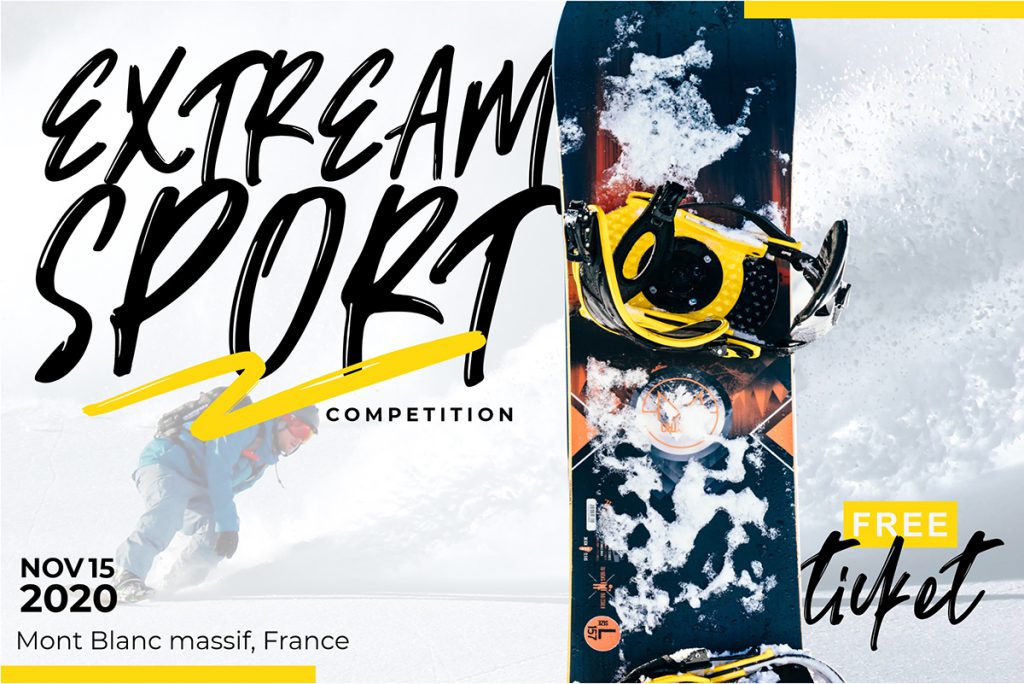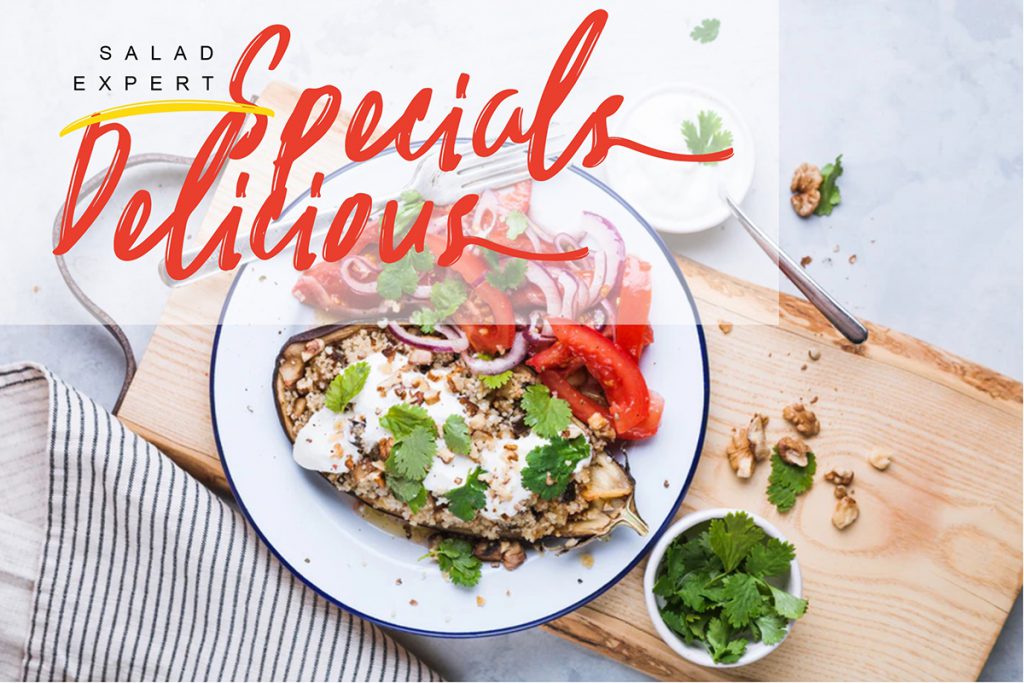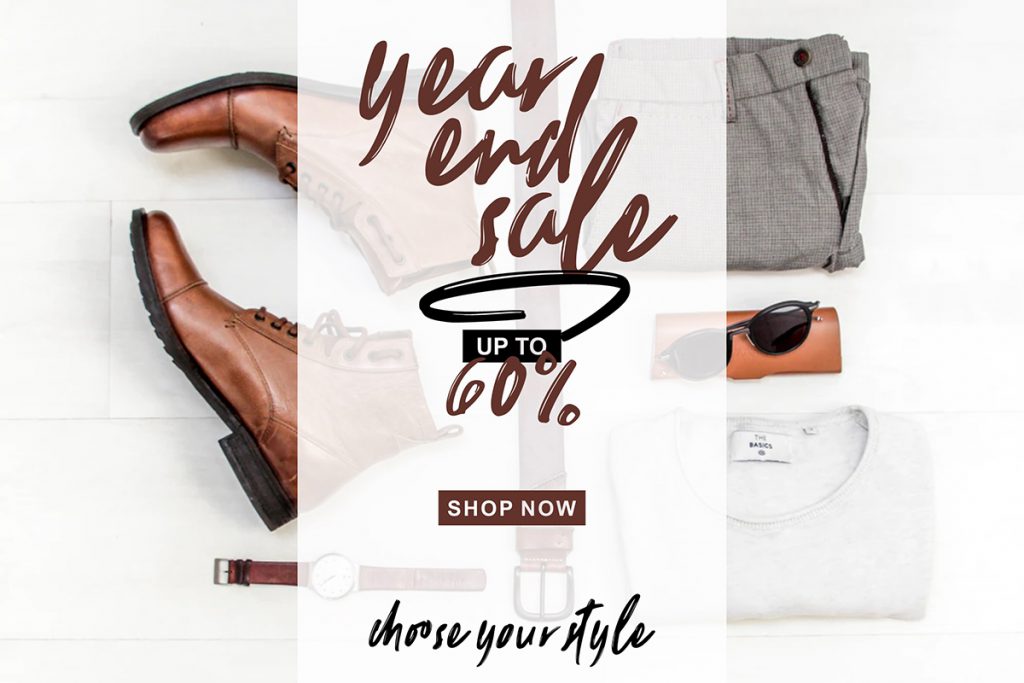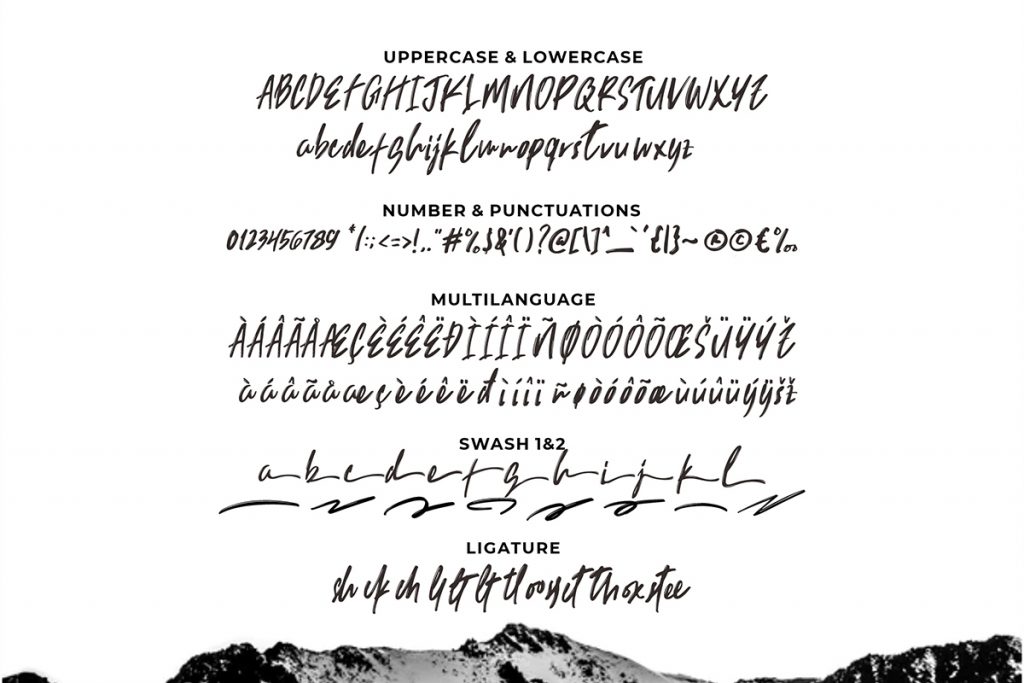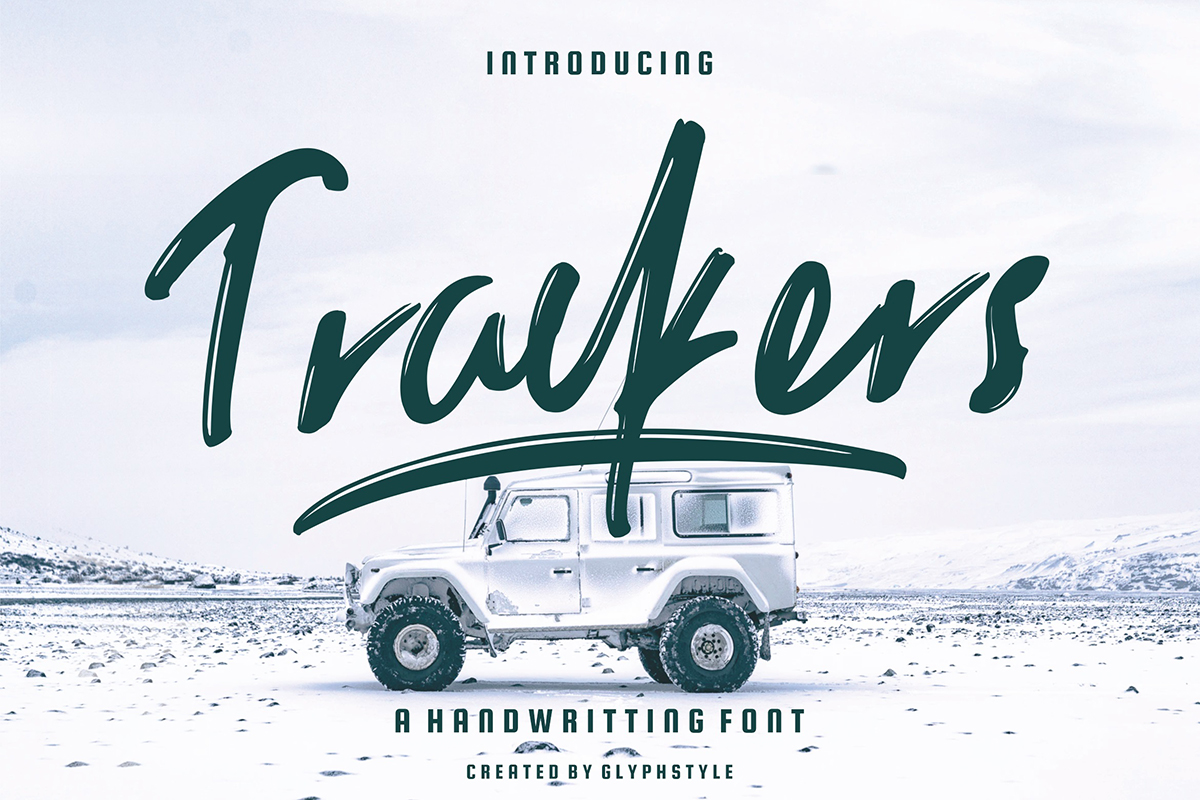
Trackers: A Free Handwritten Font
Trackers is a free handwritten font and its the latest natural brush handwriting font provided by GlyphStyle. This font comes with details and texture, slightly thick and natural like a hand stroke. Trackers is perfect for various purposes, from magazine, flyer, brand name, to label and social media.